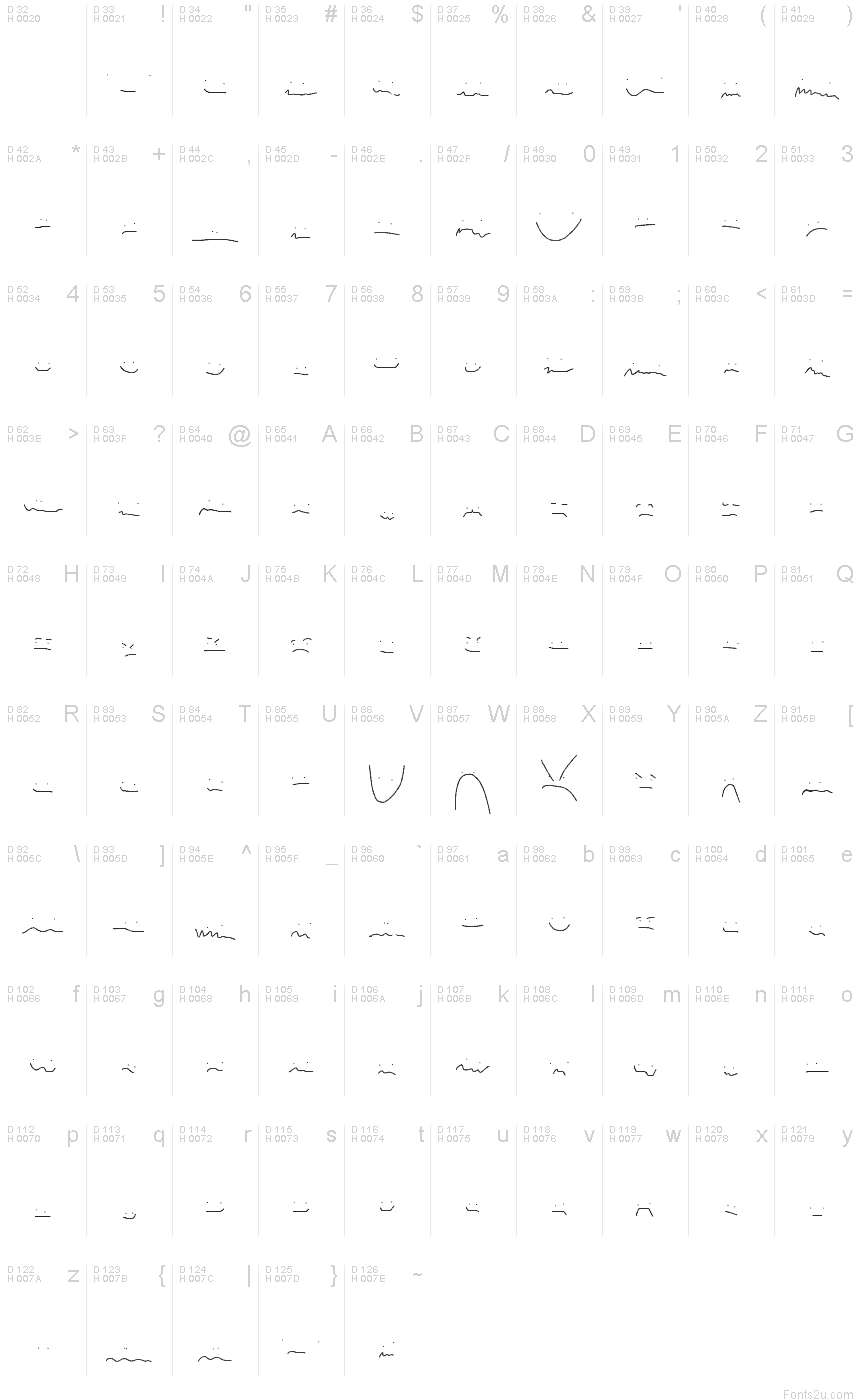
Anxiety
This is a hand-drawn Emoticon dingbat font designed by Mew Too @ Cannot Into Space Fonts/Mew Too Fonts, as a companion to our earlier emoticon ding font, Be Happy